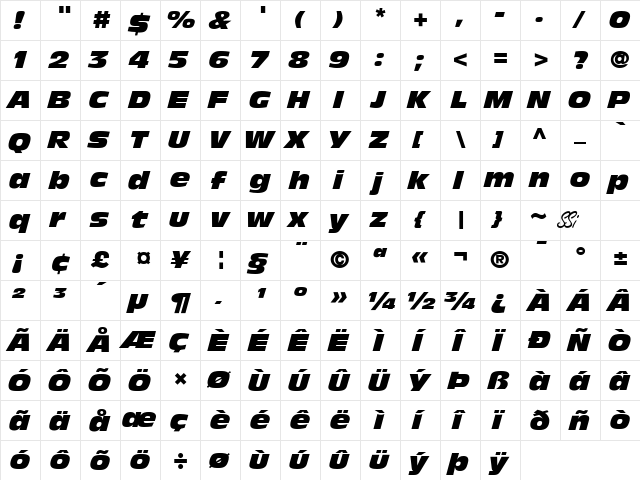
Decade Black SSi Extra Black Italic
Design Context for Decade Black SSi Typeface
Decade Black SSi takes a measured approach to typography — its balanced proportions and neutral character make it a reliable workhorse for both digital and print work. The slanted form adds forward momentum and visual energy.